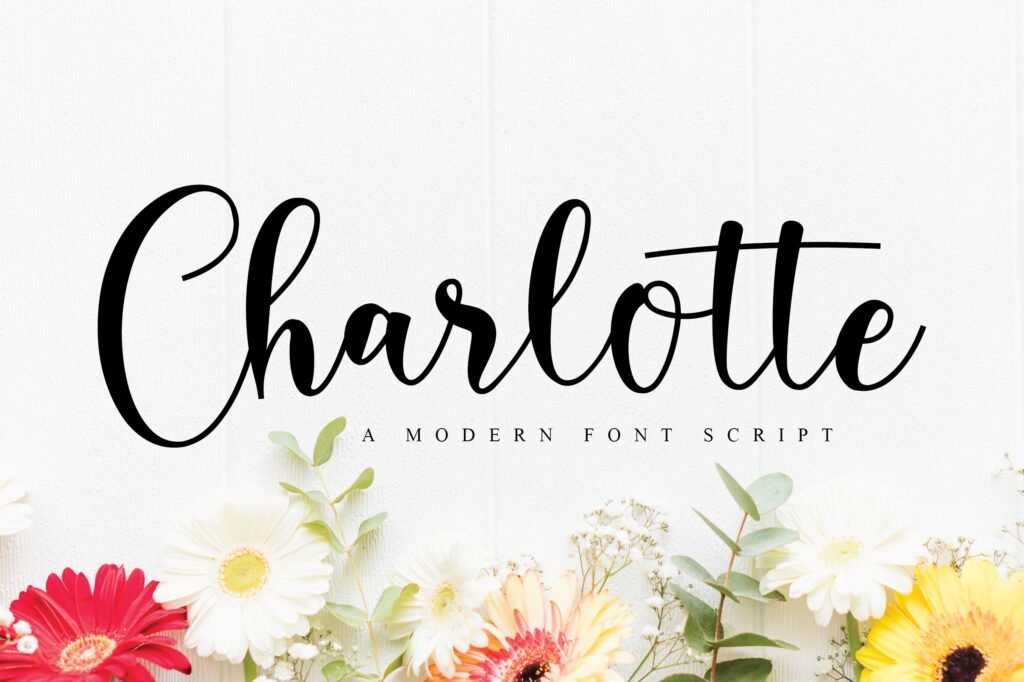
Charlotte Font is a stunning script typeface that blends elegance, personality, and a hand-crafted feel into every letter. In today’s design world, where visual storytelling plays a critical role, calligraphy and script fonts like Charlotte have become essential tools for designers, especially in branding, invitations, and social media graphics.
Inspired by natural handwriting, Charlotte script font adds a personal and romantic flair to any project. Whether you’re creating wedding invitations, logos, or packaging for a boutique brand, this font delivers sophistication and charm.
What is Charlotte Font?
Charlotte Font is a graceful calligraphy-style script typeface designed to mimic elegant, handwritten pen strokes. Known for its flowing curves and feminine energy, this font style is often used in high-end branding, personal projects, and romantic stationery.
Although there are a few variations online, many of them share the same inspiration: refined handwriting with gentle swashes and a clean finish. One well-known free version of the font is often titled “Charlotte Script”, and it’s widely available for personal use.
It stands out with:
- A friendly, romantic personality
- Soft, smooth lines
- A modern yet timeless script feel
Because of its charm, Charlotte calligraphy font is frequently used in wedding invitations, logos for lifestyle brands, and decorative packaging designs.
Key Features of Charlotte Typeface
Here are some of the standout characteristics of the Charlotte Font that make it a favorite among creatives:
- Script Style – Elegant, cursive letterforms inspired by hand lettering.
- Smooth Curves & Swashes – Beautiful flowing strokes for added elegance.
- Uppercase and Lowercase Support – Well-crafted and visually balanced.
- Ligatures & Alternates – Advanced versions come with stylish glyph variations.
These features make it versatile and suitable for both digital and print design work.
Applications of Charlotte Font
The Charlotte script font shines in projects that require a personal, delicate, or elegant touch. Here are popular ways creatives use this typeface:
- Wedding Invitations & Stationery
Ideal for names, headings, or entire invitation layouts with a romantic flair. - Branding & Logos
Perfect for boutique shops, florists, skincare brands, and other feminine identities. - Social Media Graphics
Frequently used for inspirational quotes, announcements, and profile headers. - Printables & Greeting Cards
Great for Etsy sellers and digital product creators offering home decor or greeting card downloads. - Product Packaging
Used on cosmetic labels, fashion hang tags, and other packaging that needs a handcrafted touch.
Charlotte Font is a beautiful, versatile script typeface perfect for adding elegance and personality to any creative project. Whether you’re designing for a wedding, a boutique brand, or a digital shop, this font brings timeless charm with a modern twist.